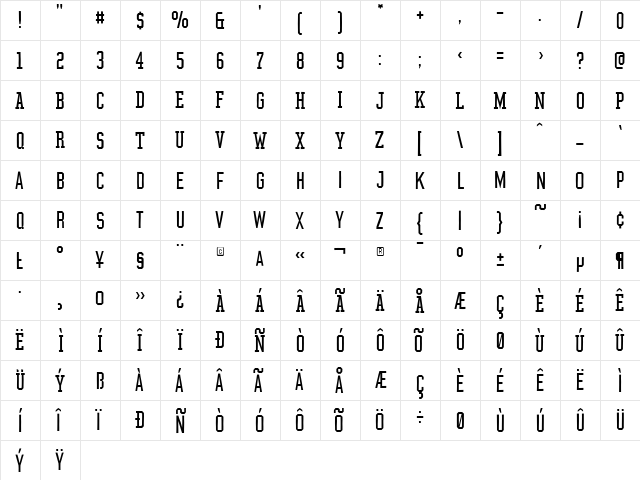
Graphium Light
| Foundry | YouWorkForThem |
| Designer | Michael Cina |
Design Context for Graphium Typeface
Graphium offers clean, dependable letterforms without strong stylistic allegiance, making it a practical choice for designers who need flexibility. Its slender proportions lend an understated elegance to any composition.